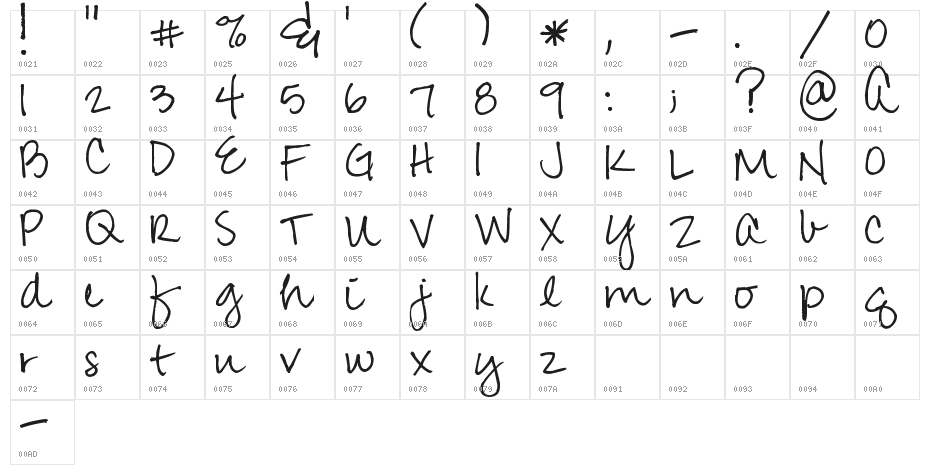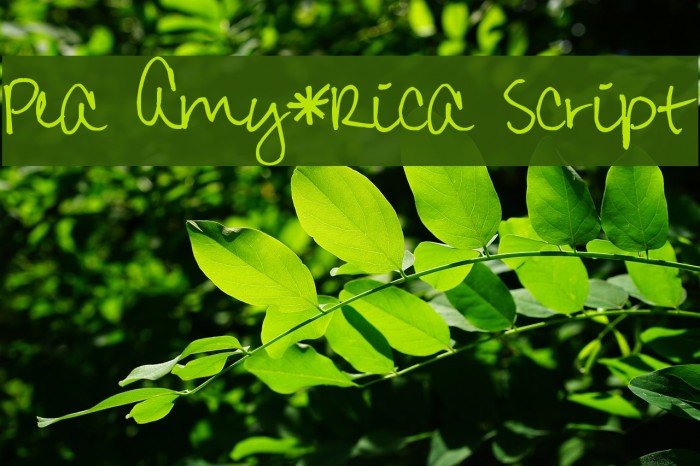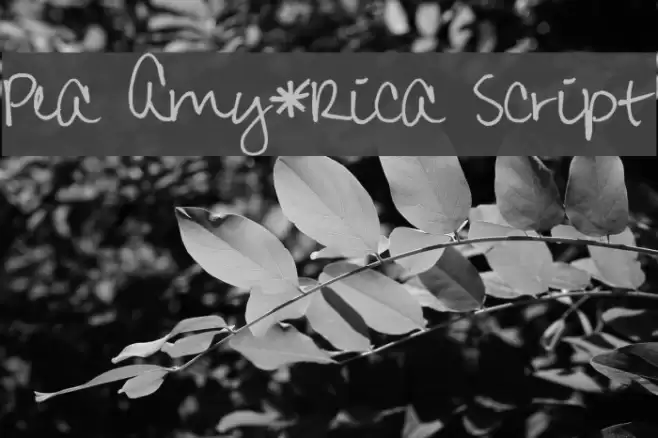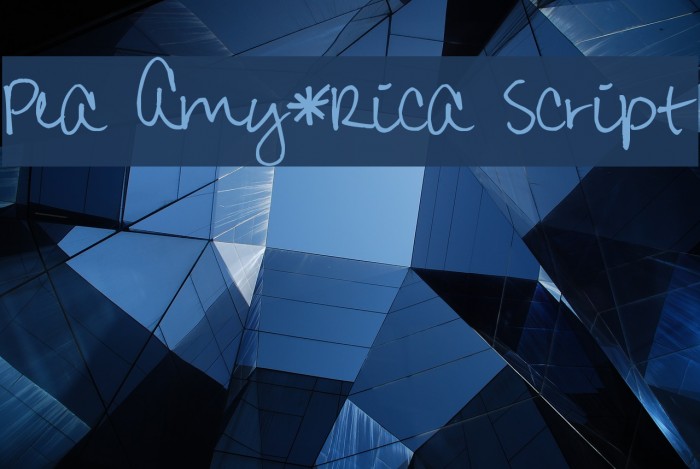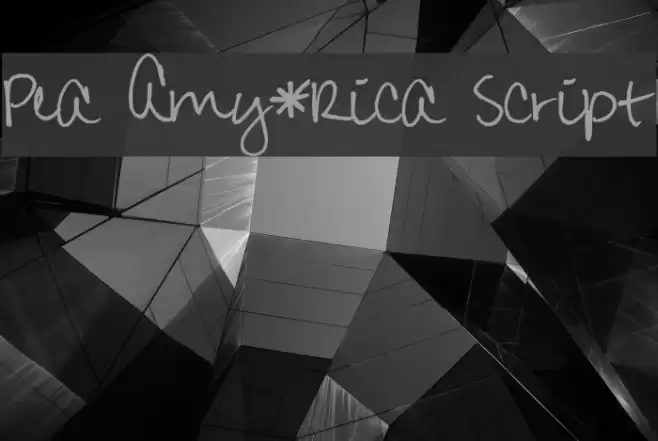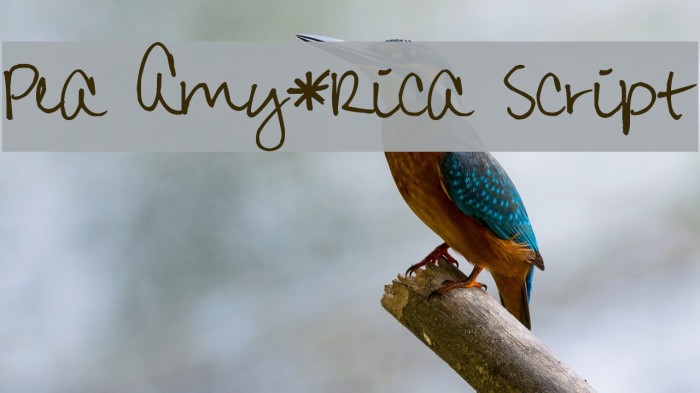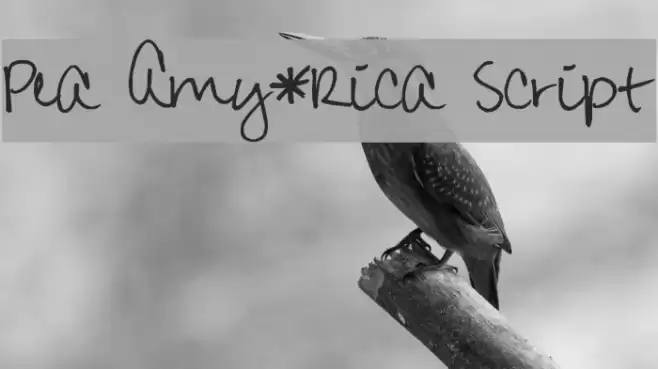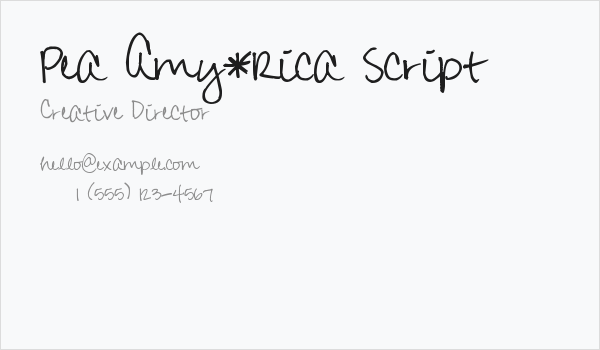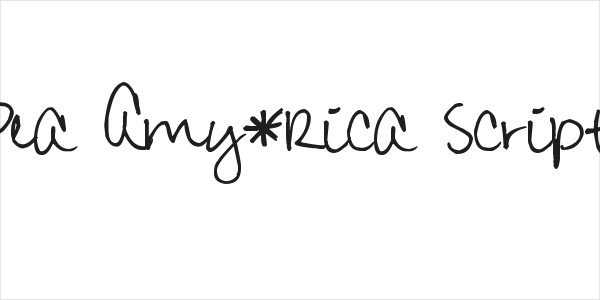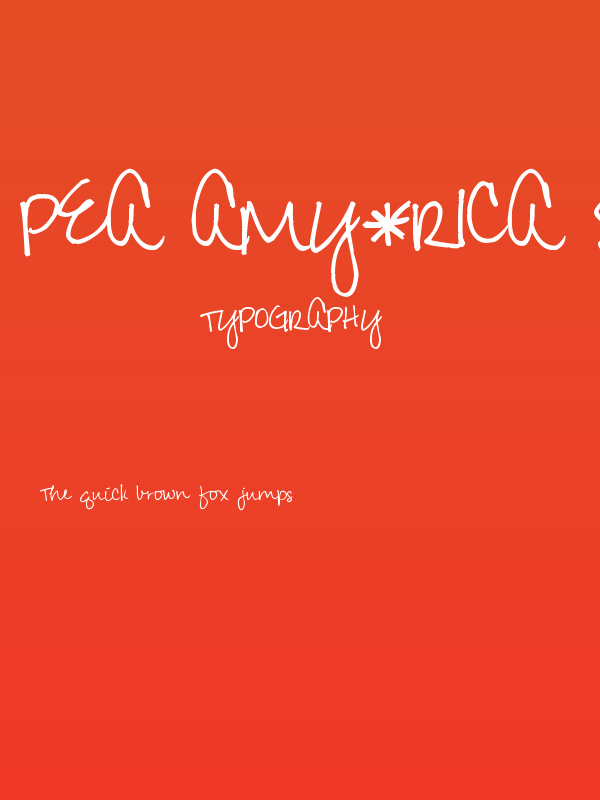
Pea Amy*Rica Script Font
Pea Amy*Rica Script Description
This font exudes a casual, handwritten style that mimics the natural flow of penmanship. Each character is crafted with a playful yet elegant touch, making it ideal for projects that require a personal and approachable feel. The uppercase letters are bold and slightly irregular, adding to the charm, while the lowercase letters maintain a consistent flow with smooth curves. Numbers and special characters are designed to complement the overall script style, ensuring a cohesive look across all text elements. The font's organic appearance makes it perfect for creative projects, invitations, and personal branding.
| Overall Style | Casual, Handwritten |
| Use Case | Headlines, Invitations, Personal branding |
| Proposed Projects | Ideal for invitations, personal branding, greeting cards, and creative projects. |